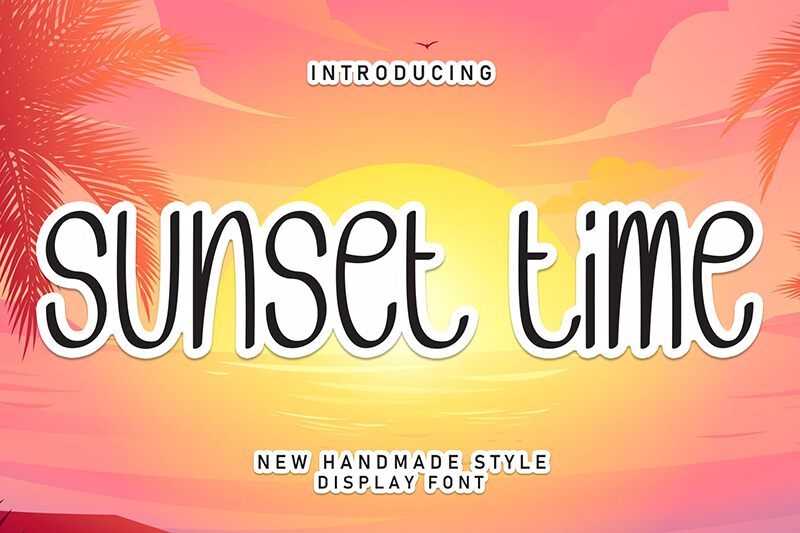
Sunset Time
Sunset Time font by Andi Moz is a free handwritten font with an artistic flair created in a light, condensed width. The typeface has a flowing form that can be described as both whimsical and organic. Its approachable feel portrays warmth and friendliness that would enrich any personal project.
Use it in logo design, branding projects, apparel designs, packaging/labeling designs, and posters. Use it for website design (maybe even as body text) or application design. Design greeting/holiday cards, invitation cards, postcards, bookmarks. Use it in book/magazine publishing projects and for document titling/subtitling too!